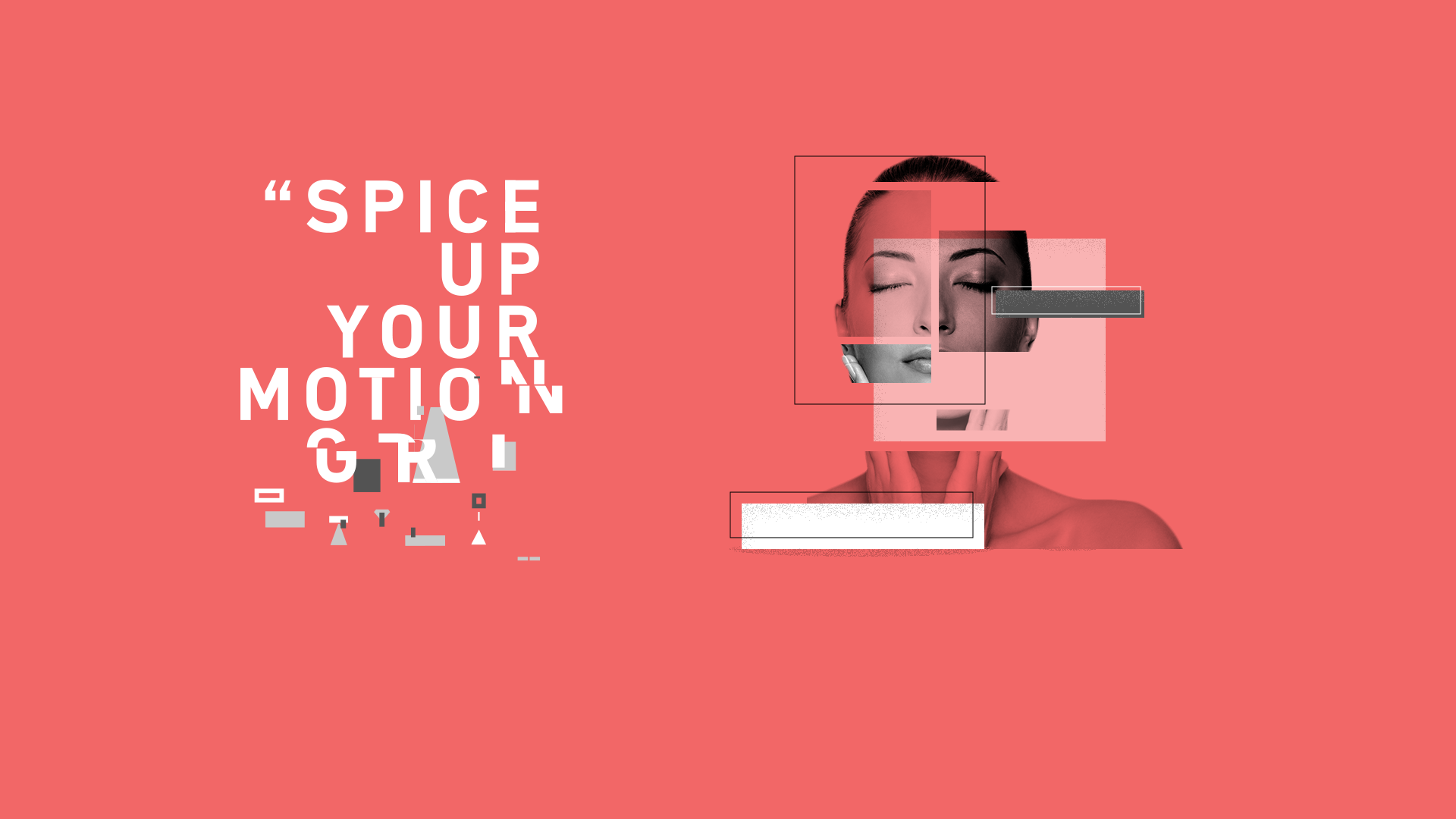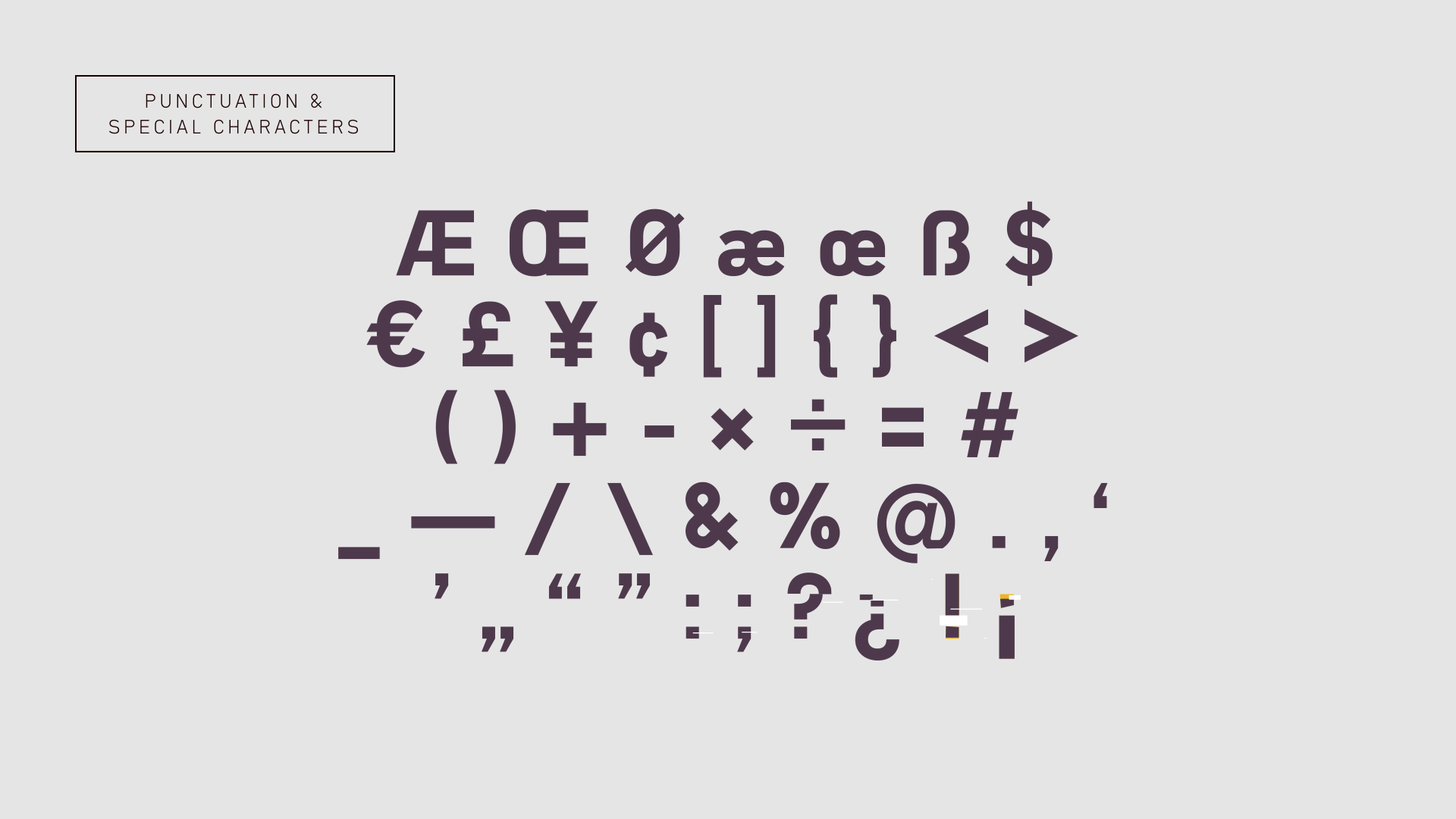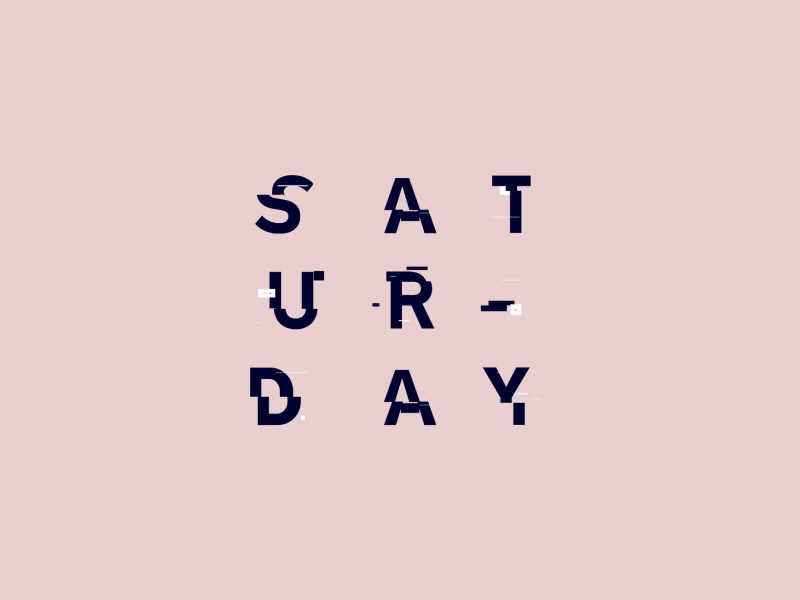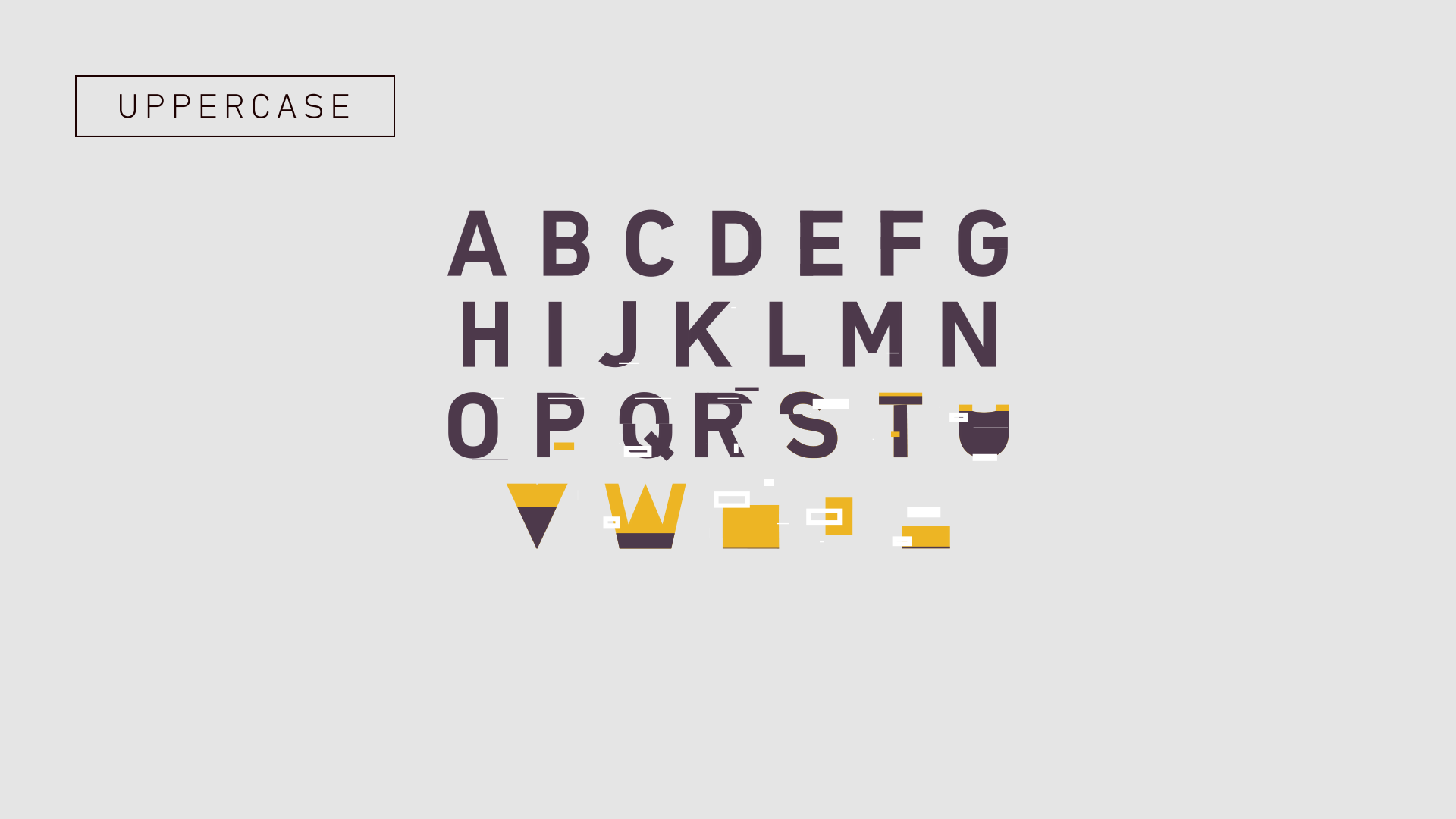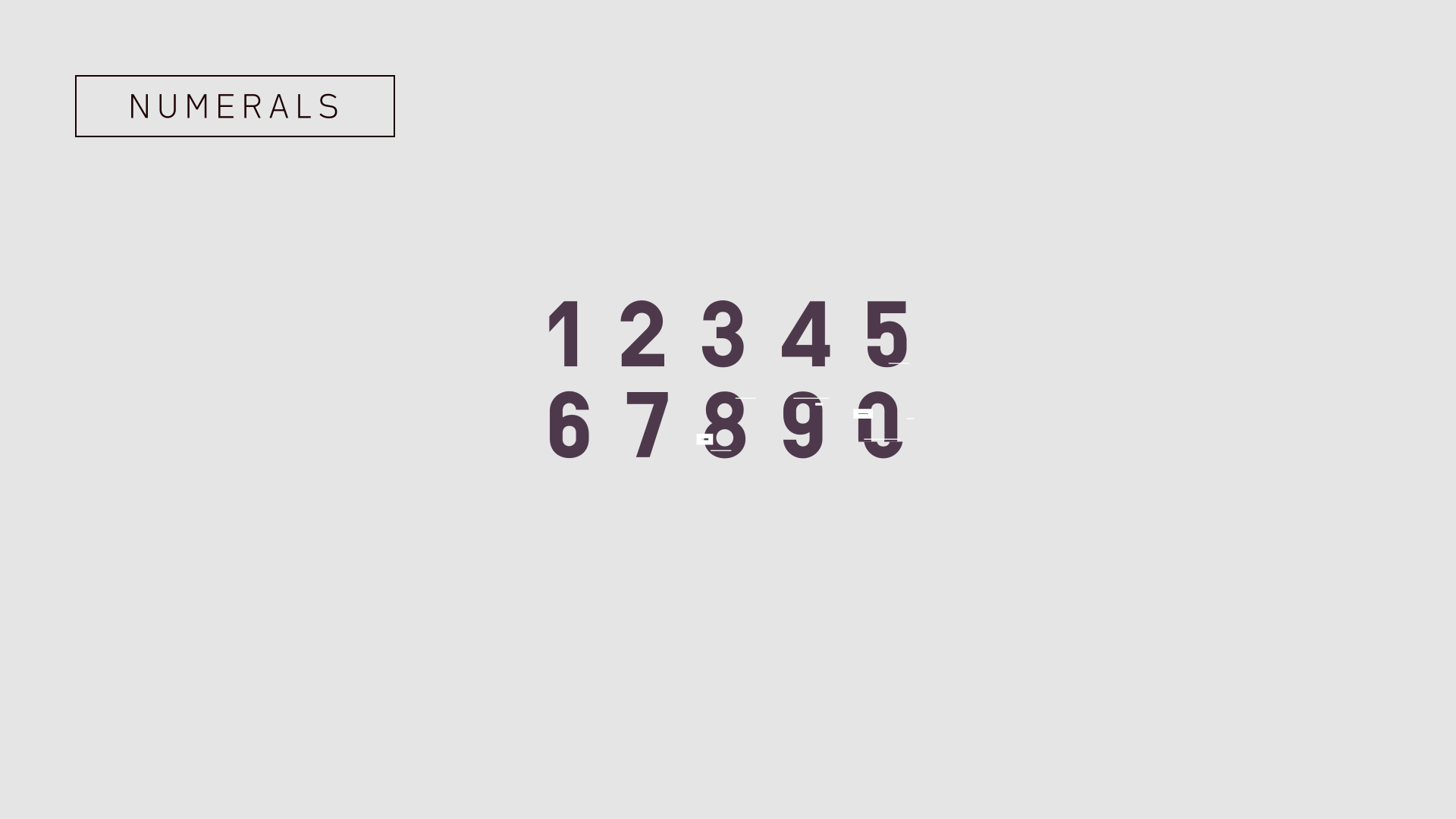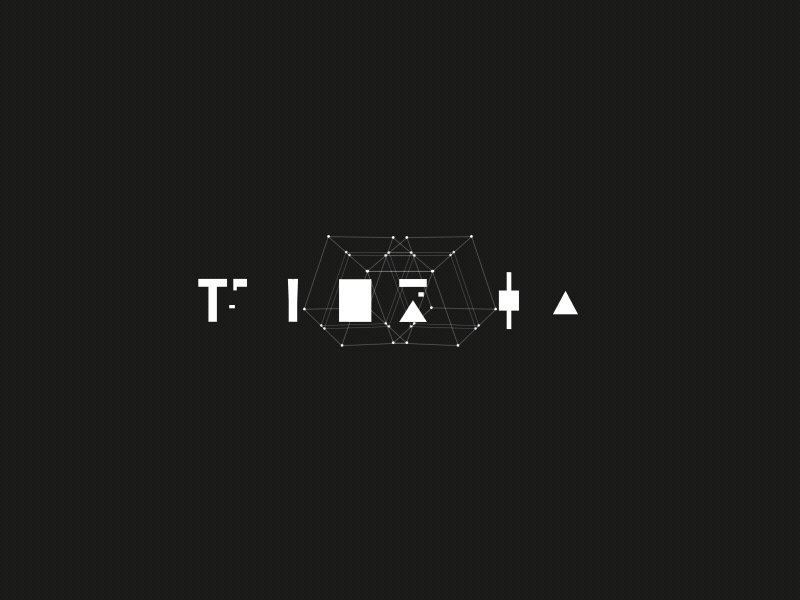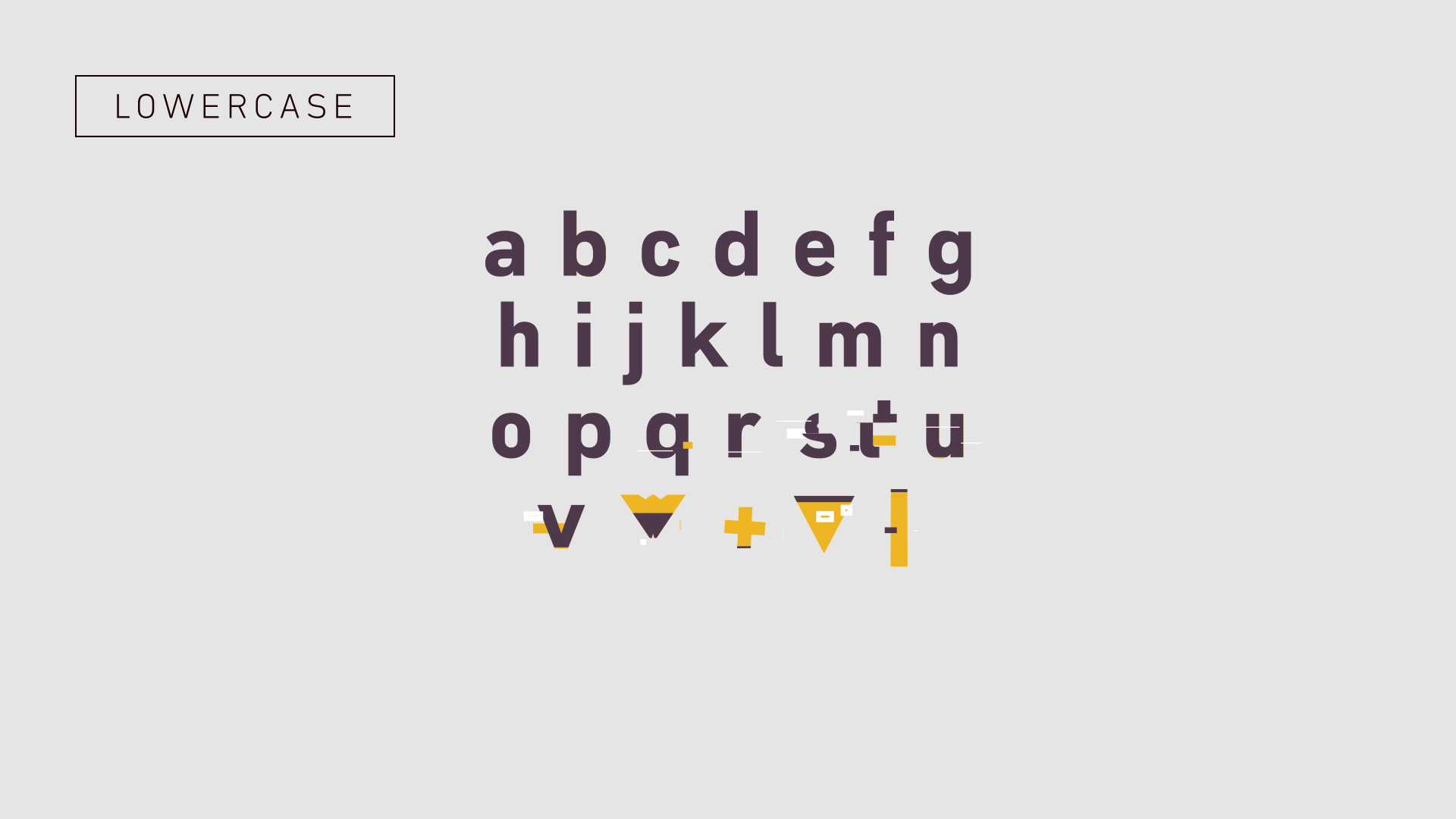
Type-36 - Animated Typeface
Type-36 is a clean, capsule-like and geometric typeface with highly customizable glitchy reveals. Control color, distortion and secondary elements to tailor Type-36 to your project.
Customizable Features
- 3 colors
- 3 individual stroke widths
- horizontal & vertical displacement